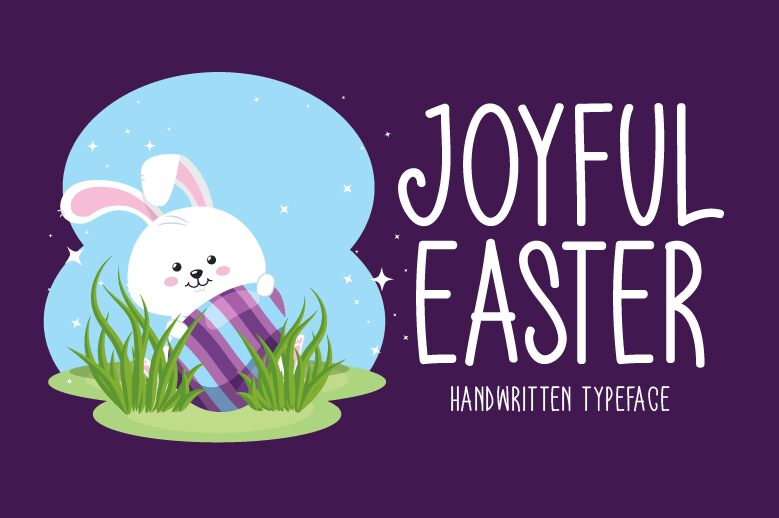
Joyful Easter, a cute handwritten font designed by Md Shohail Bhuian, exudes the cheerful spirit of Easter. With its semi-light weight and condensed width, this font is perfect for creating playful and whimsical designs.
Whether you're designing Easter cards, invitations, or party decorations, Joyful Easter adds a touch of joy to your projects. Its charming and cute style makes it suitable for children's books, greeting cards, social media graphics, and more.
Embrace the festive vibe of Easter with Joyful Easter font and let your creativity bloom!